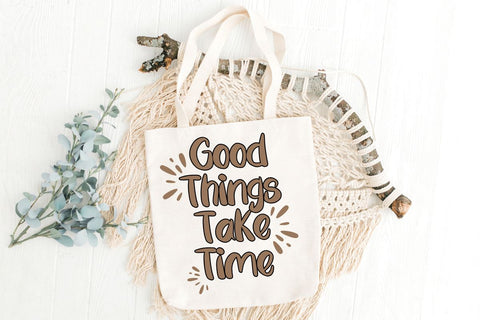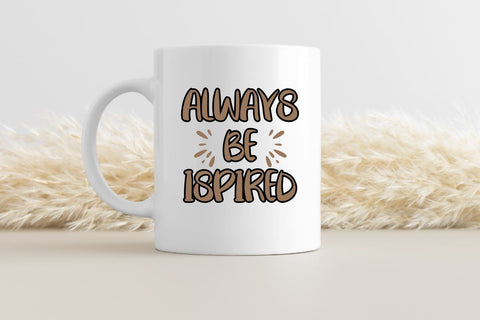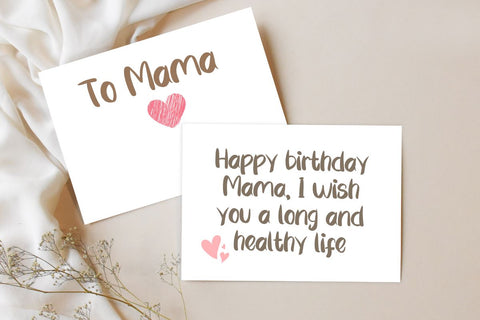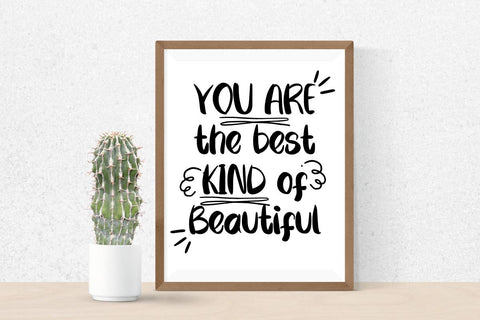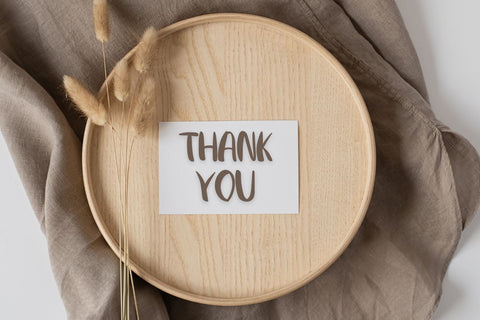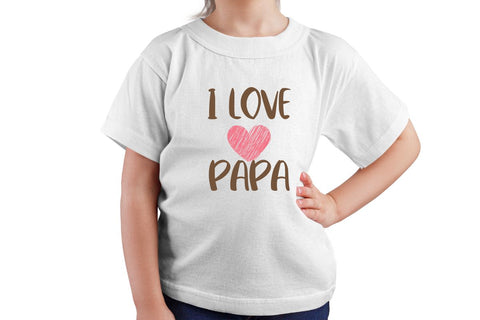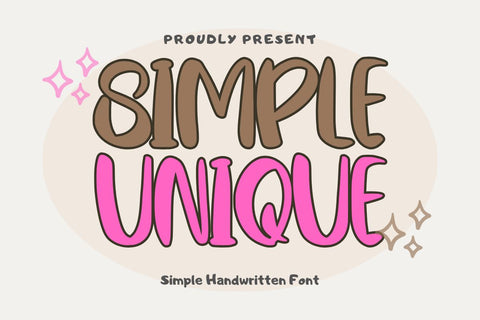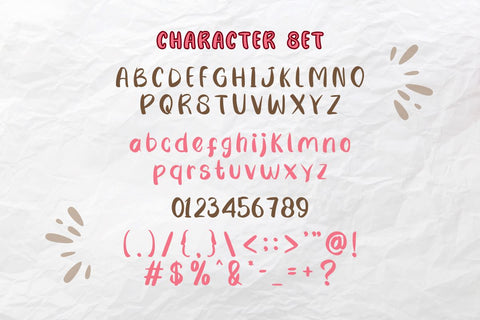
Simple Unique - Cute Handwritten Font
Hi, Introducing Simple Unique - Cute Handwritten Font
A Cute Handwritten font. This font with a cute and fun style is cool for mugs, t-shirts, posters, quotes, gretting cards, tote bags, packaging, pillows, etc.
- Numbers & Punctuation